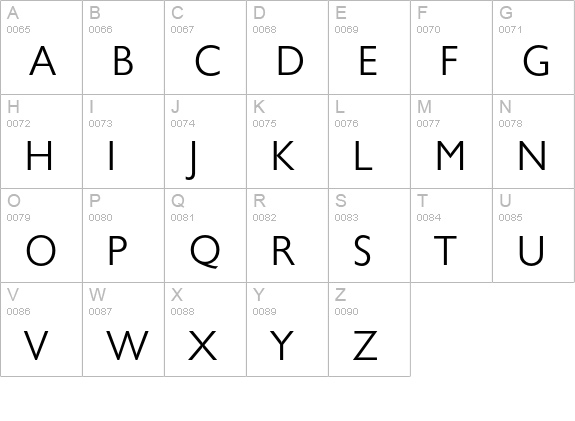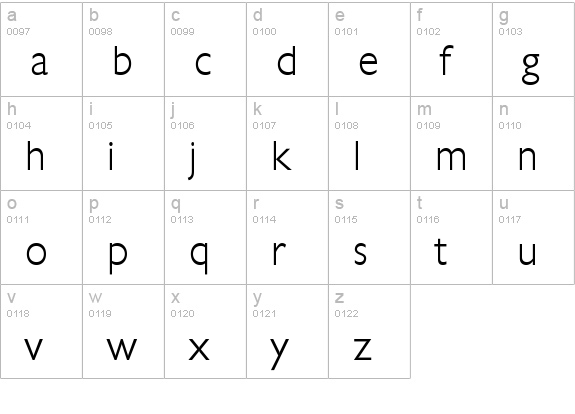
Chantilly-Light is a refined, elegant variant in the Chantilly typeface family \xE2\x80\x94 well suited to elegant body text, refined sub-headings, and luxury branding.
Chantilly-Light font is a delightful and elegant typeface that exudes sophistication and charm. With its delicate strokes and graceful curves, this font is perfect for adding a touch of class to any design project. The Chantilly-Light font is available for free download at FontsMarket.com, making it easily accessible for anyone looking to elevate their typography game. Whether used for branding, invitations, or any other creative endeavor, Chantilly-Light is sure to make a lasting impression with its timeless appeal.